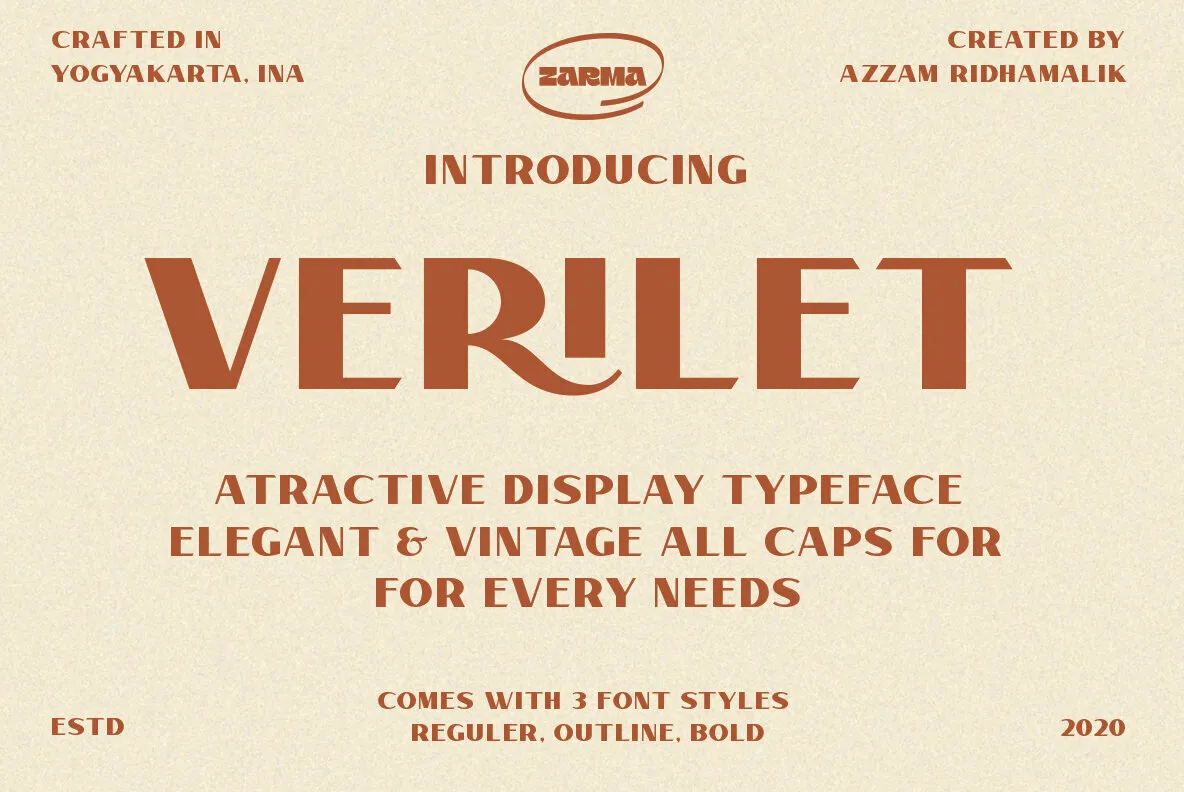
Verilet Font
Discover the stunning elegance of Verilet Verilet, a semi-vintage display
typeface perfect for logos, branding, magazines, websites, and more